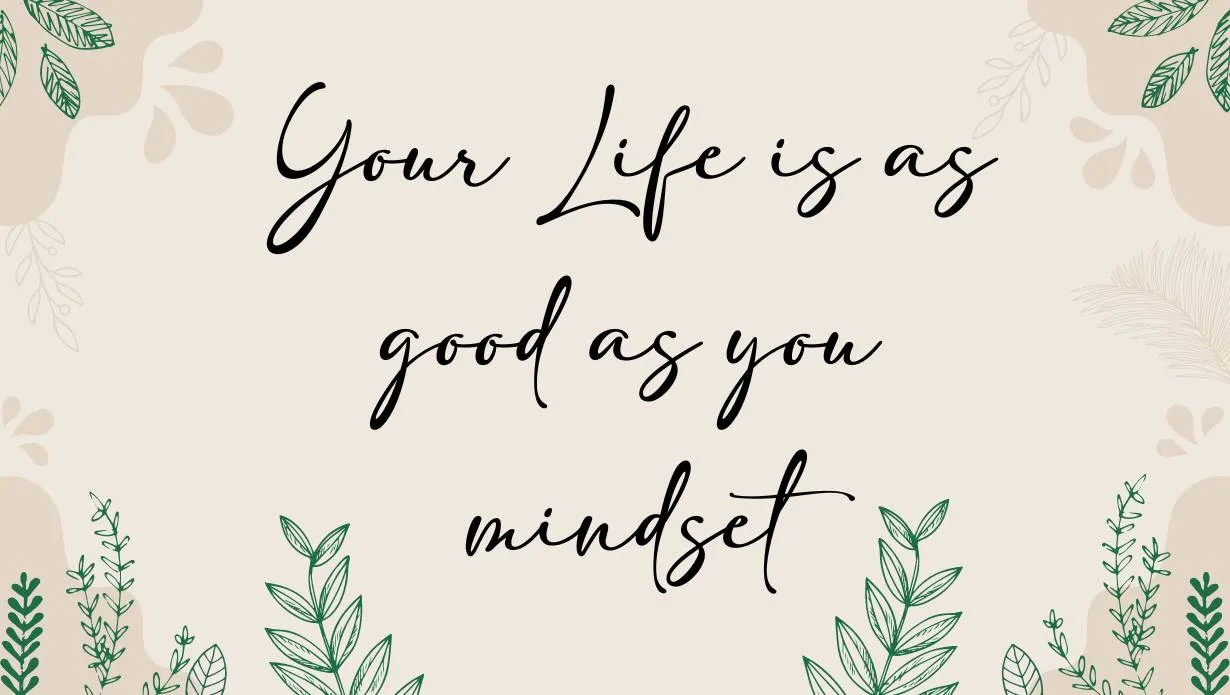
Adelia Font is a calligraphic typeface that has unique thin strokes and its letters are connected. It is designed by Carolina Herrera. It is the most striking and inimitable typeface.
It resembles elegant handwriting which gives the illusion that they are being drawn with flat-tipped brushes or pens. This unparalleled font was inspired by the work of bygone script typeface designers.